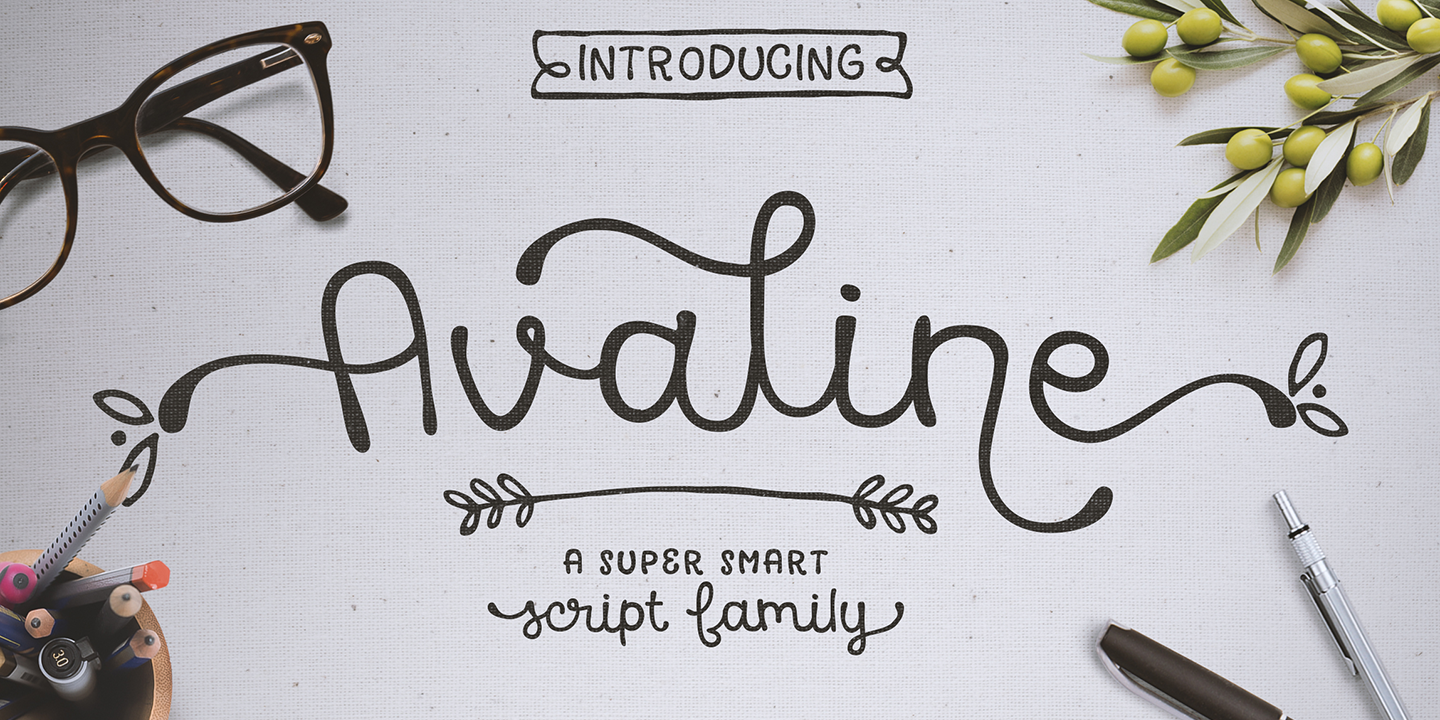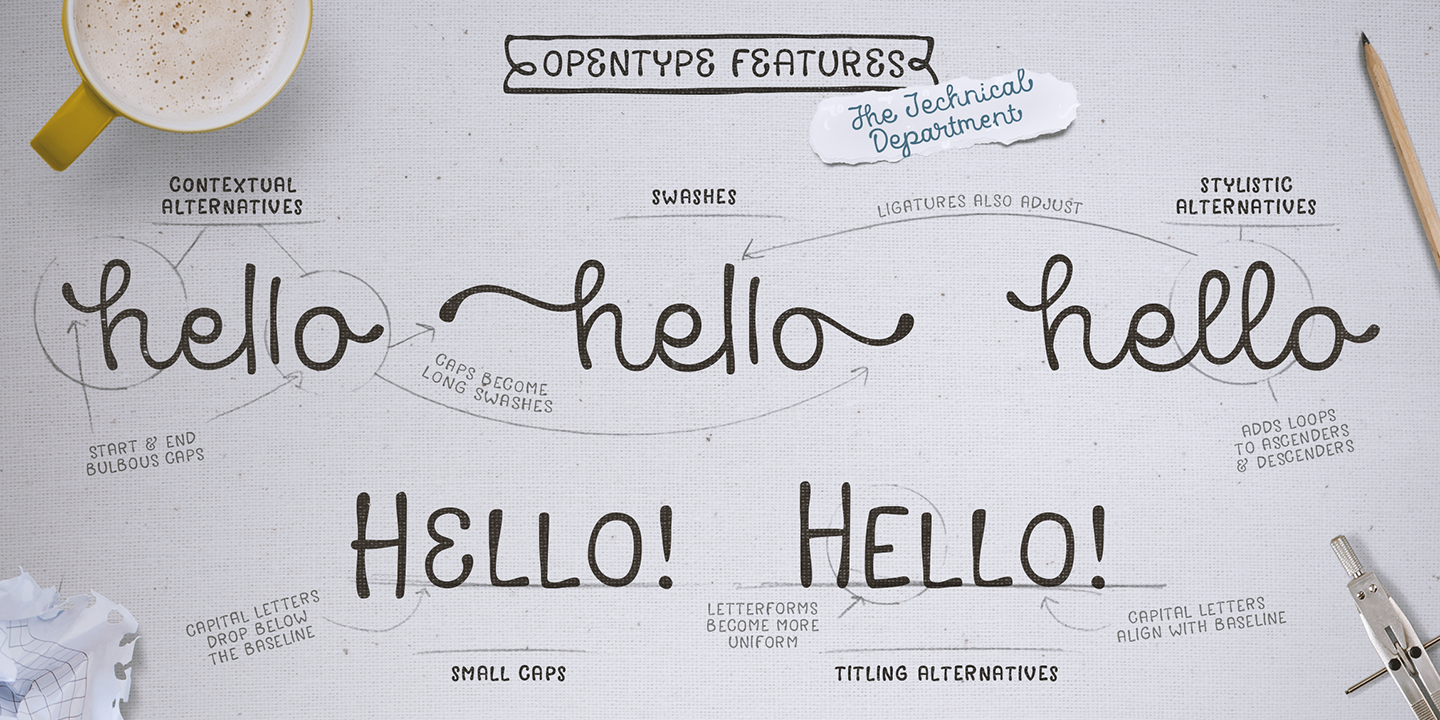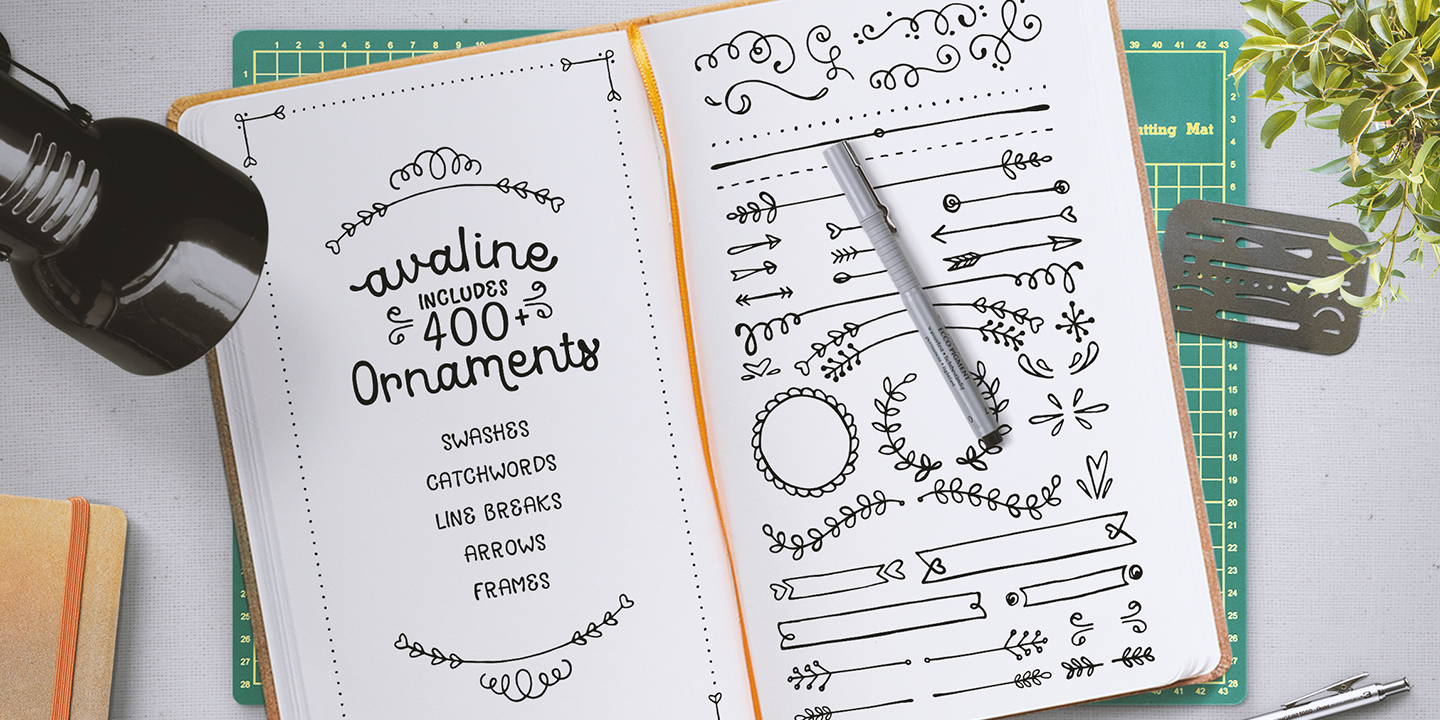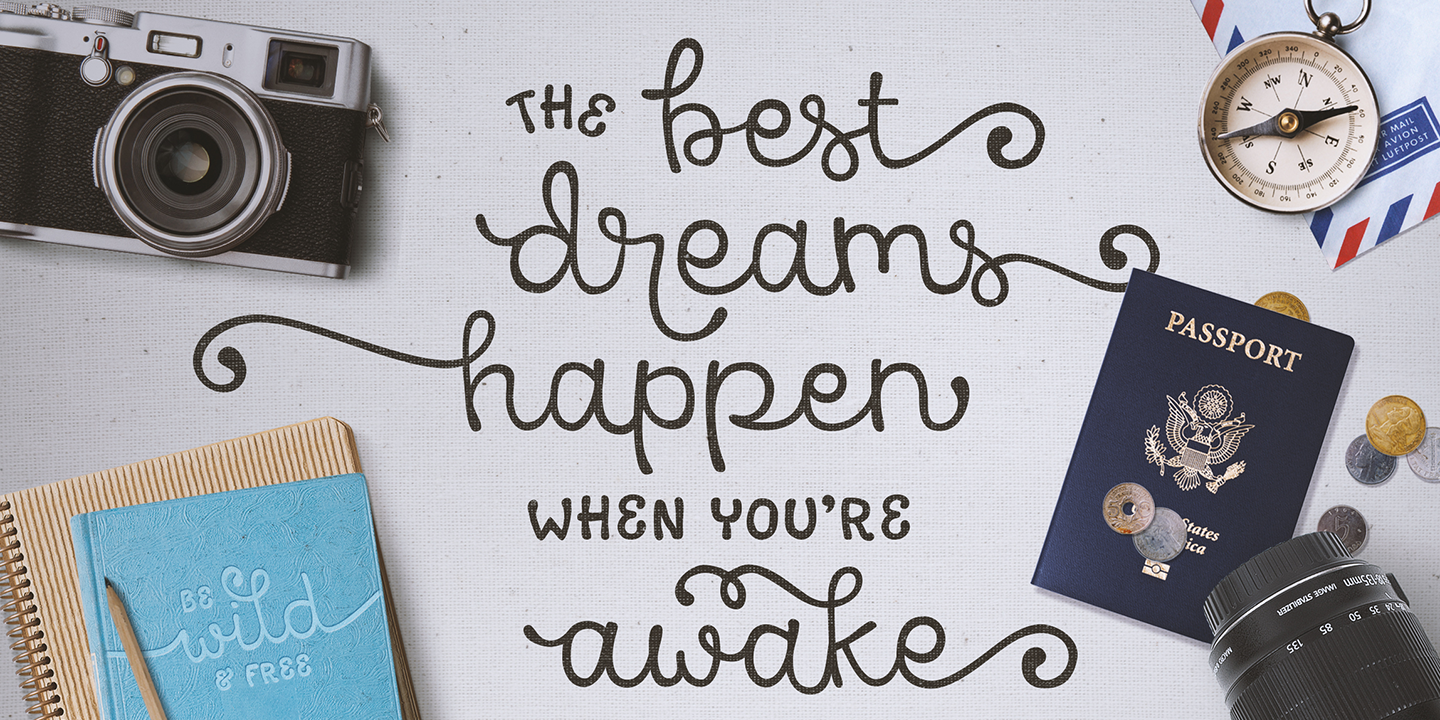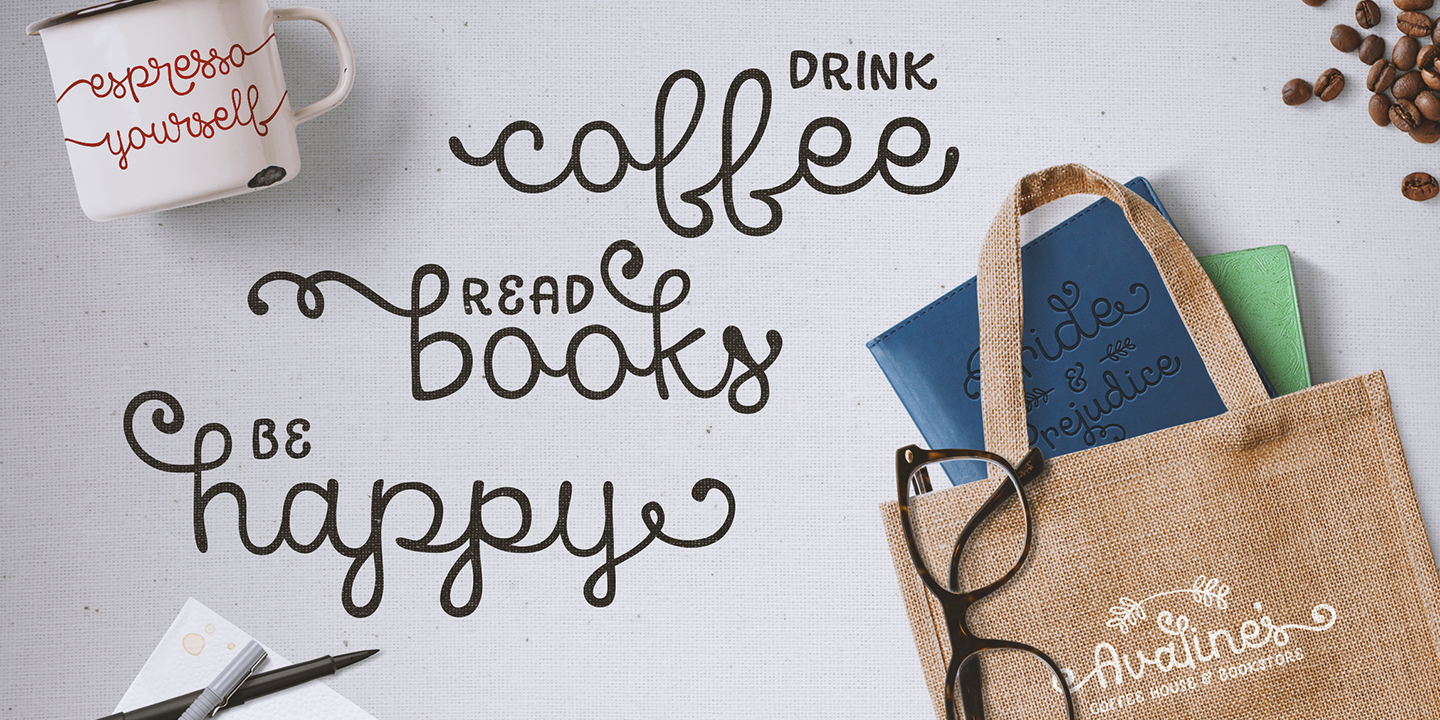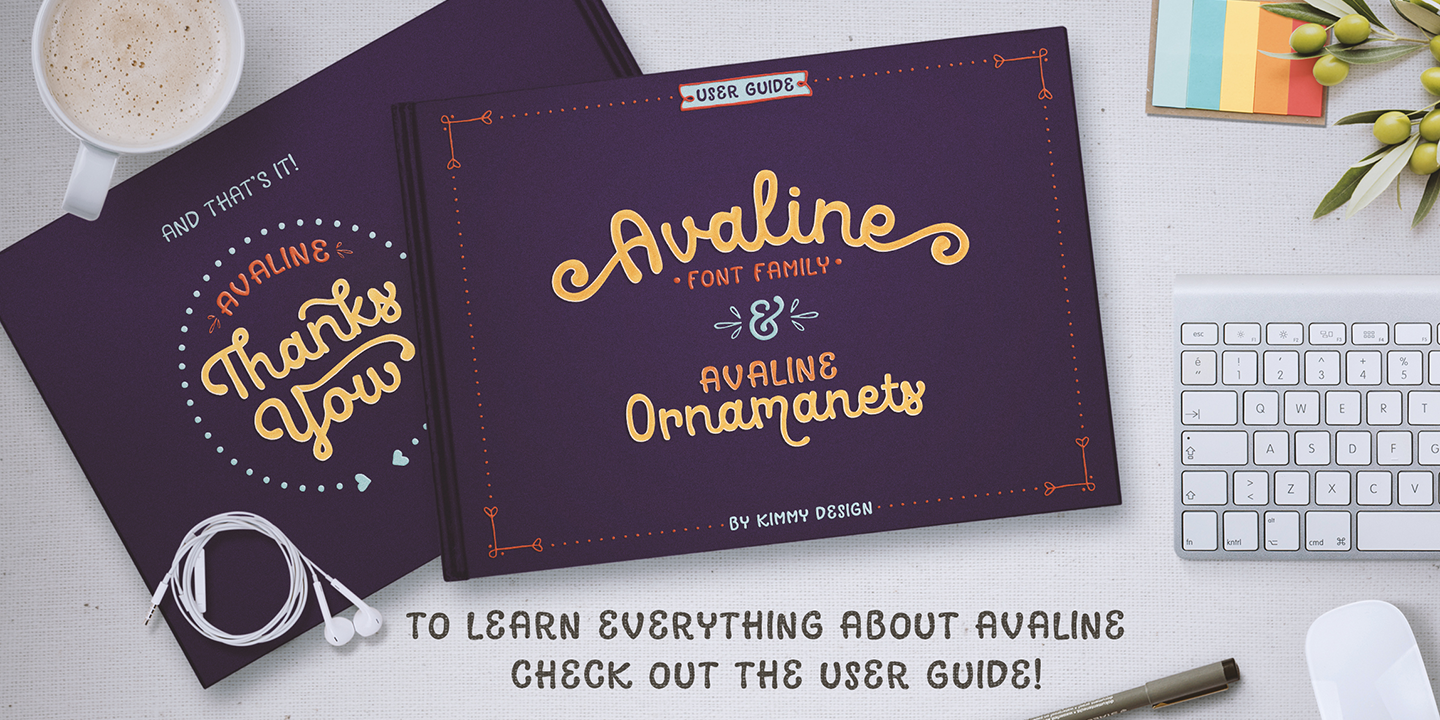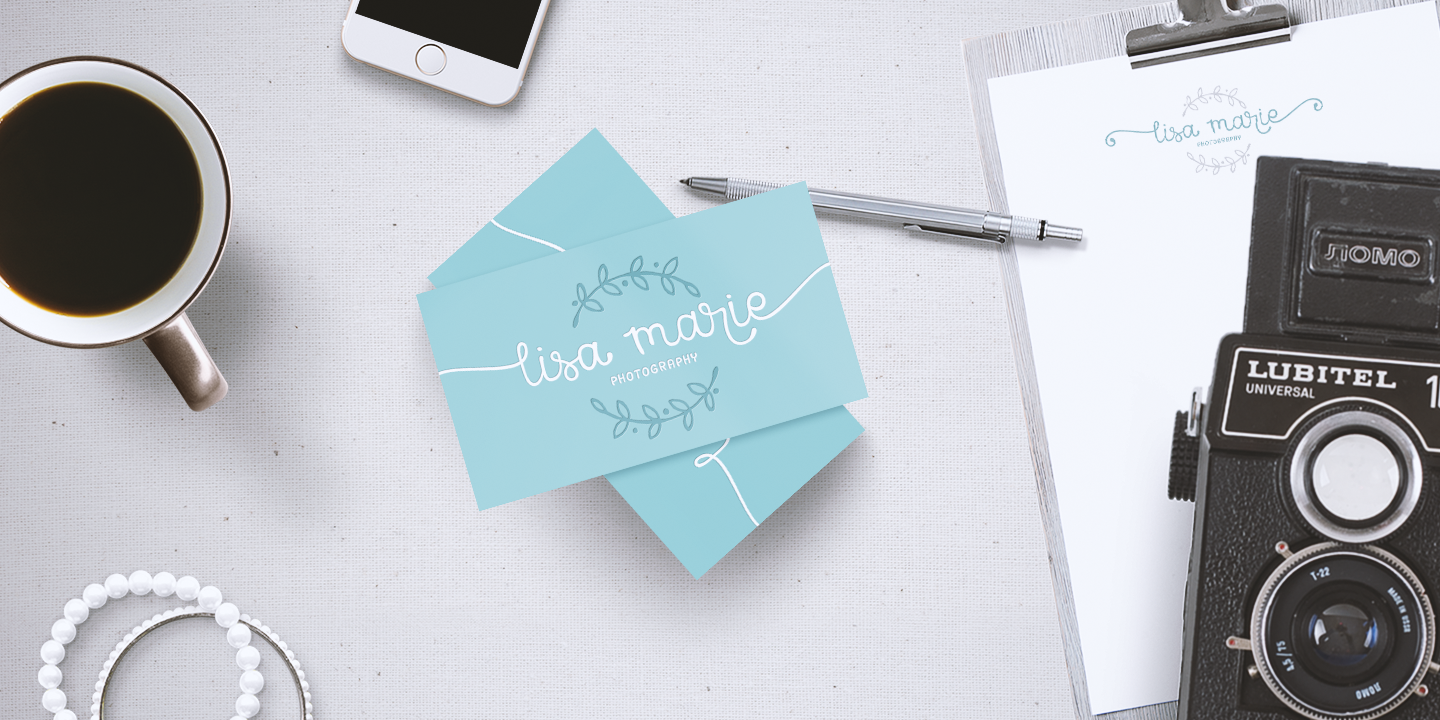
Avaline Script Family (10 fonts)
From Kimmy Design
Packed with Opentype features, Avaline comes together to make a truly authentic hand script family package. It’s imperfect hand-drawn style is utilized by contextual alternatives - giving each character 3 subtle variations as well as special styles that appear automatically based on where they appear in a line of text. Stylistic alternatives offer completely different styles for all capital and some lowercase letters. Swashes provide numerous flourish options for ascending & descending letters as well as characters that start or end text lines. Small caps and titling alternatives provide great secondary text options, converting the script letterforms to more proportional small cap ones.
Avaline also comes with a massive set of extras, including catchwords, swashes & flourishes, arrows, borders, line breaks, laurels and frames. Together they makes for a truly organic script font bundle.
Old-style Digits, Ligatures, Small Caps, Alternates, Contextual Alternates, Swash